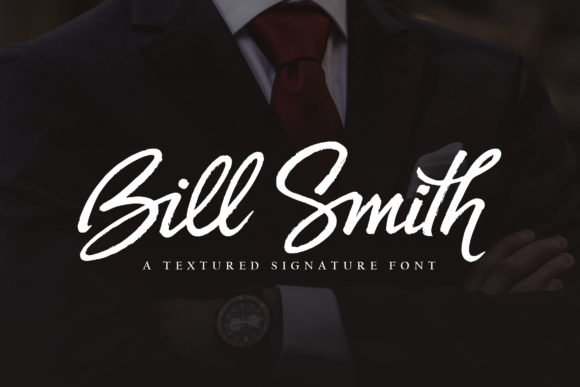
Introduce the Bill Smith Font, an exquisite script font that captivates with its artistic charm and irresistible textured style. Crafted by the talented Subectype, this font family exudes uniqueness, making it an ideal choice for expressing your creativity in various digital and design projects.
With Bill Smith Font, the possibilities are endless. Elevate your photography with an authentic handwritten touch, add a personal flair to your signatures, or make your brand stand out with a stylish logo. This versatile font family complements any design, from invitations and greeting cards to social media posts and website headers. Its simplicity lies in its strength, allowing your words to shine with elegance and sophistication.
The Bill Smith Font is not just a font; it's an expression of your individuality. Whether you're a graphic designer, a blogger, or simply someone who loves beautiful fonts, this font family will inspire you to create captivating visuals that leave a lasting impact. Unleash your creative potential and transform your designs into masterpieces with the Bill Smith Font. Dive into the world of typography and discover the endless possibilities that await you. Embrace the Bill Smith Font today and embark on a journey of creative expression like never before!